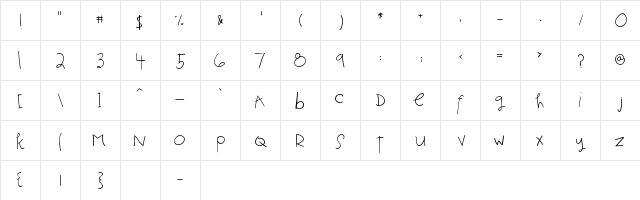
2Peas Rainy Day Regular
| Foundry | Two Peas in a Bucket |
| Designer | Amy Grendell |
Design Context for 2Peas Rainy Day Typeface
2Peas Rainy Day is a composed and adaptable typeface that performs quietly and consistently across a wide range of design contexts.